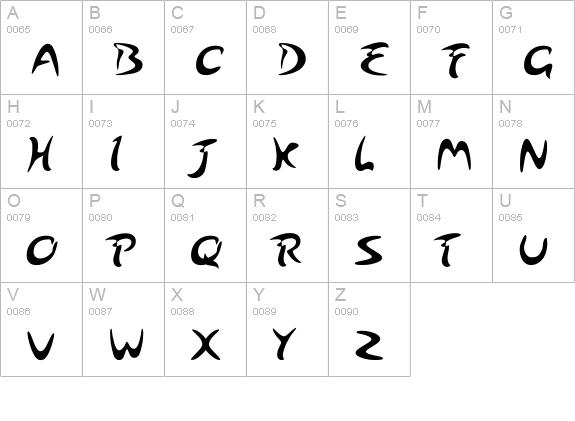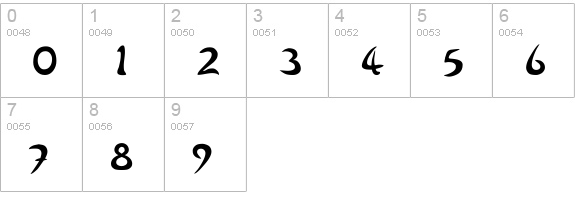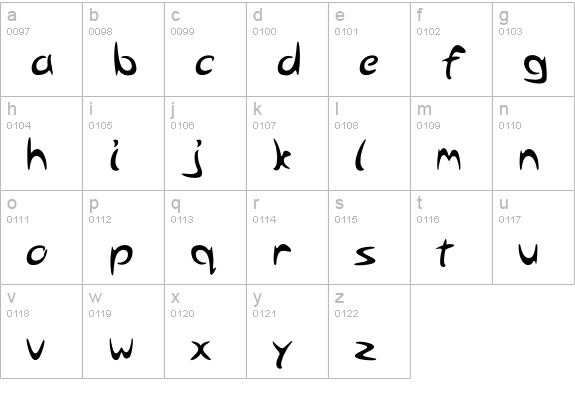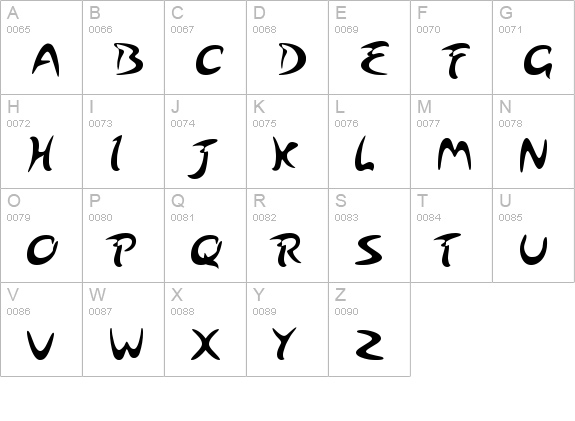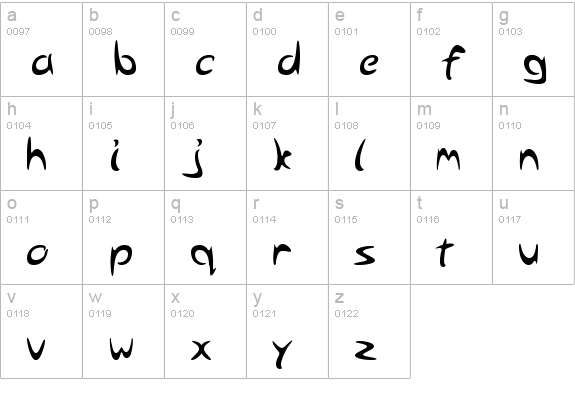
Arabolical 1 Font Details
Arabolical 1 is a striking and elegant font that captures the essence of Arabic calligraphy in a modern and refined way. Its intricate strokes and graceful curves give a sense of sophistication and beauty to any design project. The fluidity of the characters makes Arabolical 1 versatile and suitable for a wide range of applications, from branding to editorial design. What sets Arabolical 1 apart is not only its aesthetic appeal but also its accessibility - it is available for free download at FontsMarket.com. This means that designers and creatives can easily incorporate this unique and captivating font into their work without any cost barriers. Whether you are working on a personal project or a professional assignment, Arabolical 1 is a valuable addition to your font library. Experience the beauty and versatility of Arabolical 1 today by downloading it for free at FontsMarket.com.